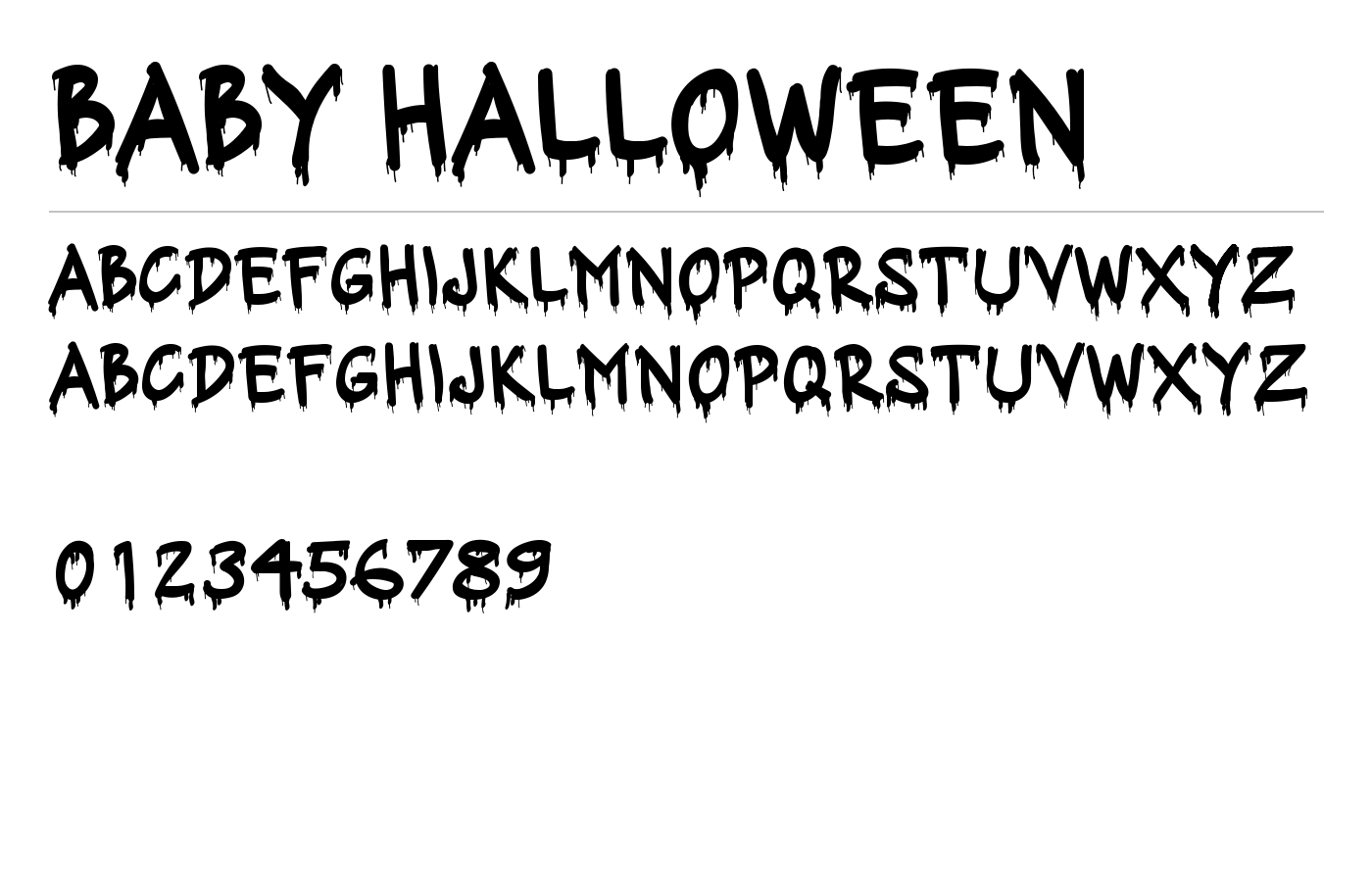
Baby Halloween is a playful and bold display font with a spooky drip effect that creates a fun, eerie vibe perfect for Halloween-themed designs. Featuring thick, uneven strokes and uppercase letters with a hand-drawn feel, it works great for eye-catching headlines, party invites, and festive posters where a quirky, creepy atmosphere is desired.
Baby Halloween Font
About Baby Halloween Font